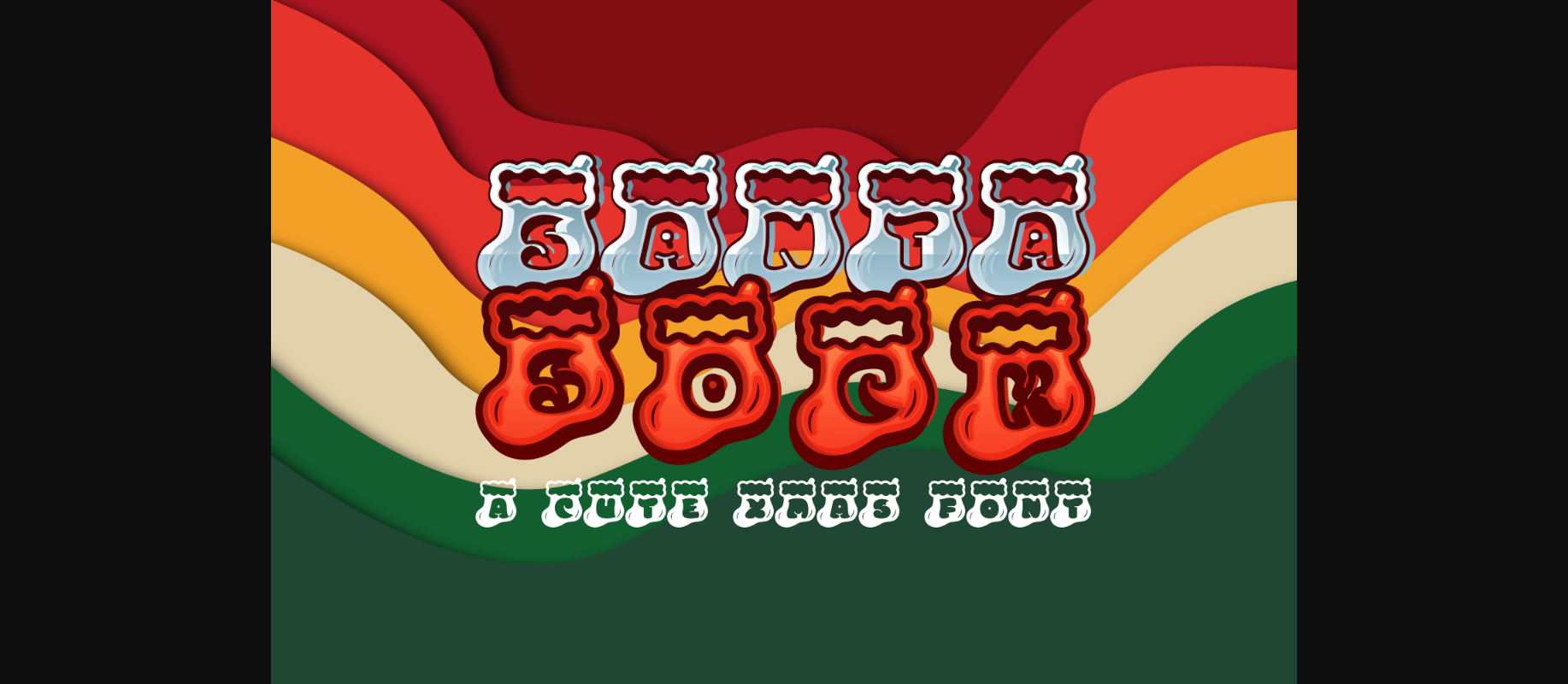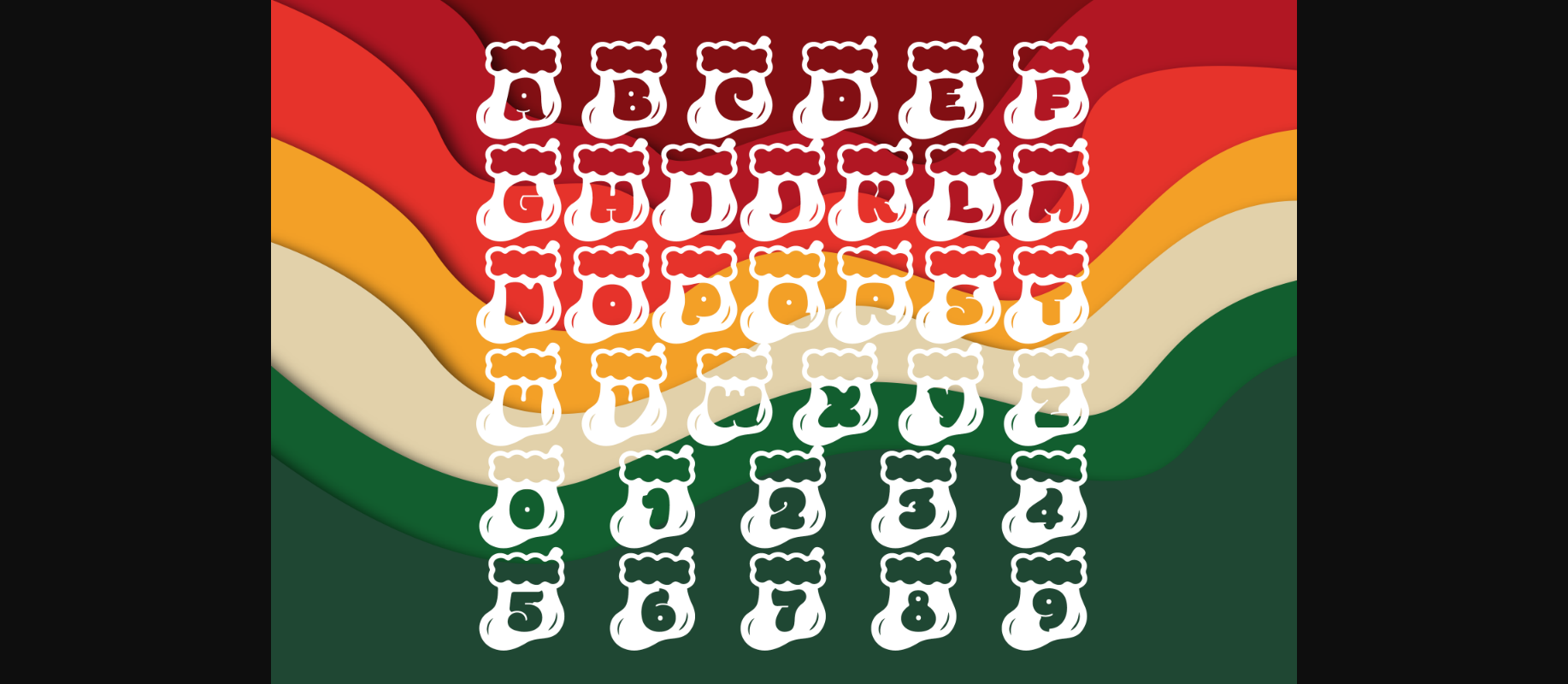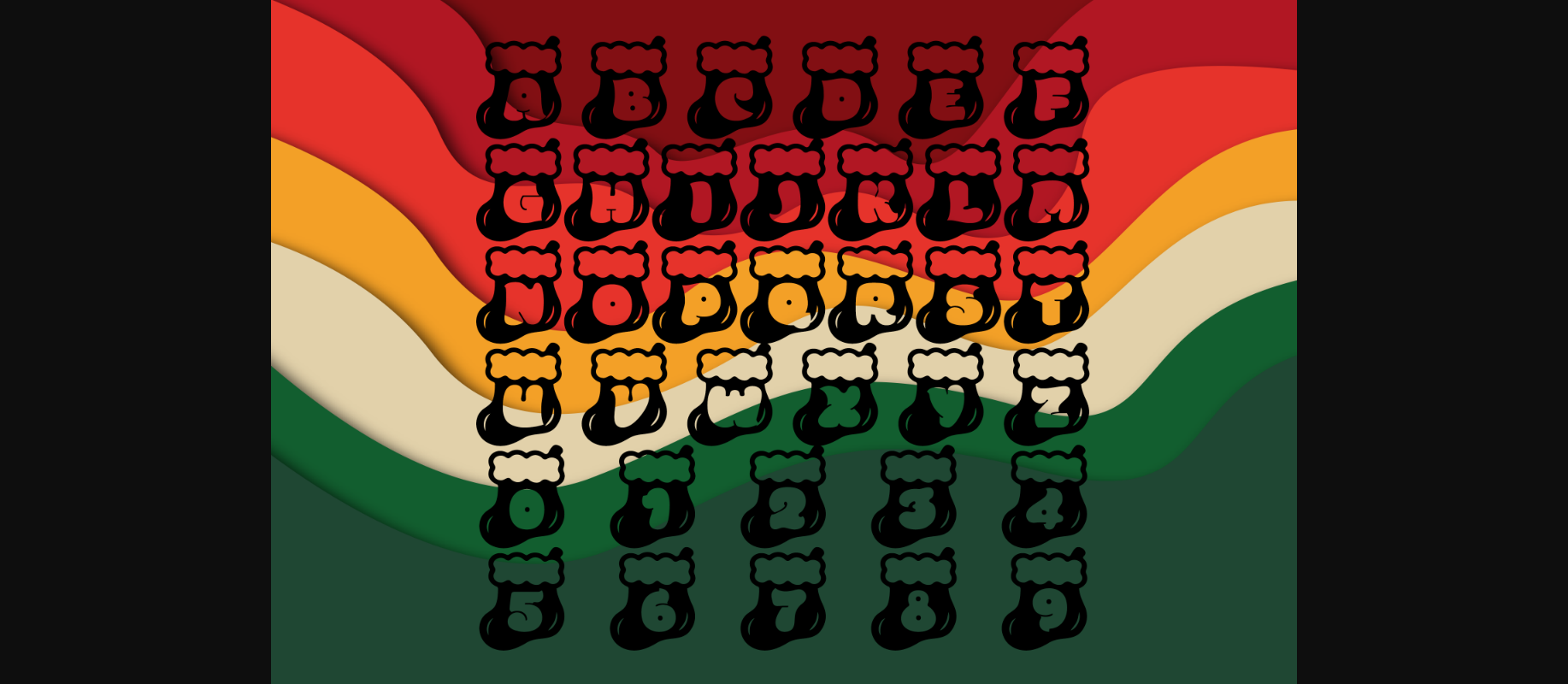
Santa Sock Font
About Santa Sock Font
Santa Sock is a fun and festive decorative font. It is perfectly suitable for any Christmas-related project or crafty idea! The only limit is your imagination.